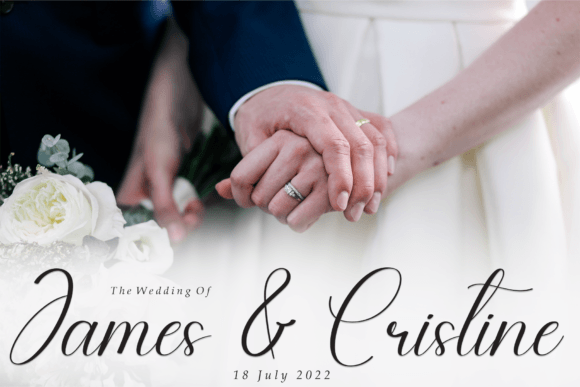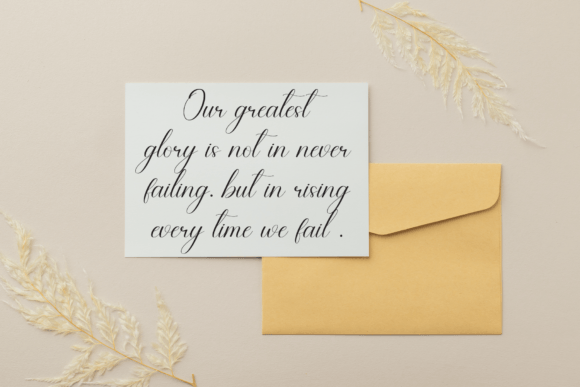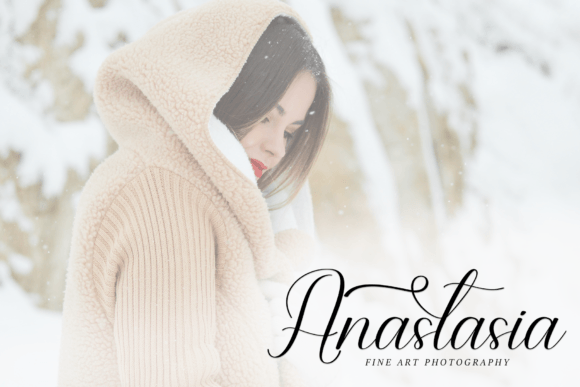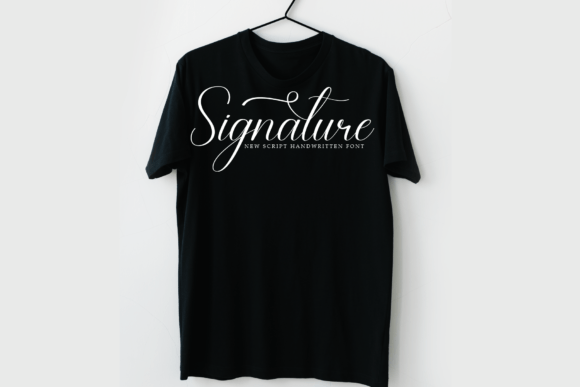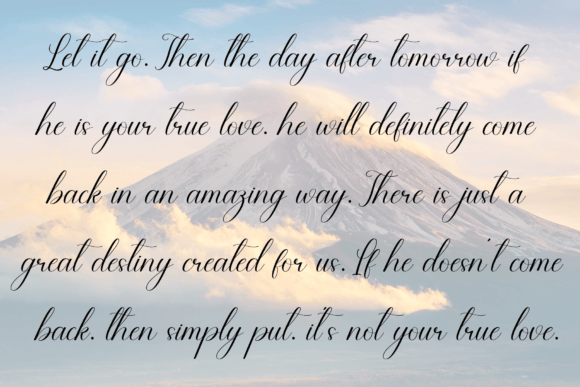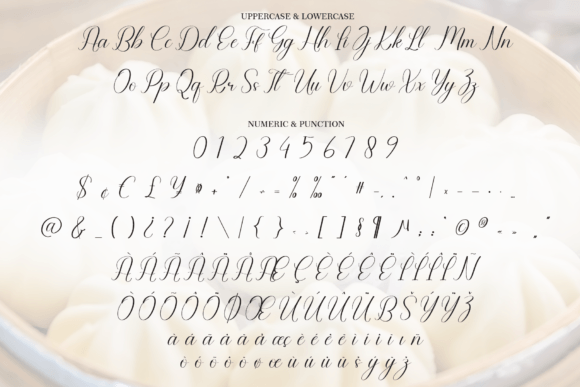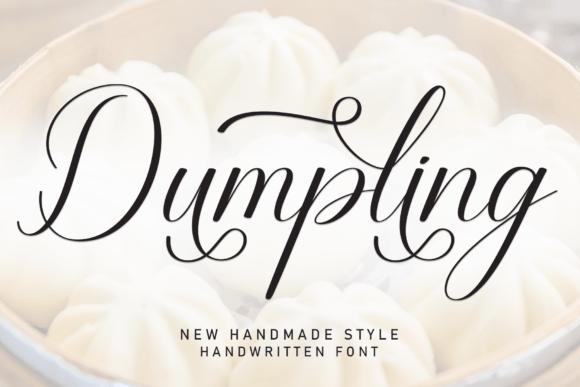
Dumpling Font: The Sweet and Friendly Handwritten Font for Your Designs
Are you looking for a font that can add a touch of sweetness and friendliness to your designs? Look no further than the Dumpling font! This beautiful handwritten font is perfect for creating wedding invitations, cards, and other designs that require a lovely and personal touch.
What is Dumpling Font?
Dumpling font is a type of handwritten font that is characterized by its sweet and friendly appearance. It is a digital font that can be used on various platforms, including graphic design software, websites, and social media. The font is designed to look like it was written by hand, with a playful and cursive feel that makes it perfect for a variety of design projects.
Features of Dumpling Font
The Dumpling font has several features that make it a great choice for designers and crafters. Some of its key features include:
• Cute and Fun: The Dumpling font is a cute and fun font that can add a playful touch to your designs. It is perfect for creating designs that require a lighthearted and whimsical feel.
• Sweet and Friendly: The font has a sweet and friendly appearance that makes it perfect for creating designs that require a personal touch. It is ideal for wedding invitations, cards, and other designs that require a warm and welcoming feel.
• Handwritten: The Dumpling font is a handwritten font that is designed to look like it was written by hand. It has a unique and personal feel that makes it perfect for creating designs that require a human touch.
• Versatile: The Dumpling font is a versatile font that can be used for a variety of design projects. It is perfect for creating wedding invitations, cards, posters, and other designs that require a personal touch.
Uses of Dumpling Font
The Dumpling font can be used for a variety of design projects, including:
• Wedding Invitations: The Dumpling font is perfect for creating wedding invitations that require a personal and romantic touch.
• Cards: The font is ideal for creating cards that require a warm and welcoming feel. It is perfect for birthday cards, anniversary cards, and other types of greeting cards.
• Posters: The Dumpling font can be used to create posters that require a playful and eye-catching feel. It is perfect for creating posters for events, promotions, and other types of marketing campaigns.
• Social Media Graphics: The font can be used to create social media graphics that require a personal and engaging feel. It is perfect for creating graphics for Instagram, Facebook, and other social media platforms.
Benefits of Using Dumpling Font
There are several benefits to using the Dumpling font for your design projects. Some of the benefits include:
• Unique and Personal: The Dumpling font is a unique and personal font that can add a touch of personality to your designs.
• Easy to Read: The font is easy to read and understand, making it perfect for creating designs that require a clear and concise message.
• Versatile: The Dumpling font is a versatile font that can be used for a variety of design projects.
The Dumpling font is a sweet and friendly handwritten font that is perfect for creating designs that require a personal touch. It is a versatile font that can be used for a variety of design projects, including wedding invitations, cards, posters, and social media graphics. The font is easy to use and can save you time and effort when creating designs. If you are looking for a font that can add a touch of sweetness and friendliness to your designs, then the Dumpling font is the perfect choice.